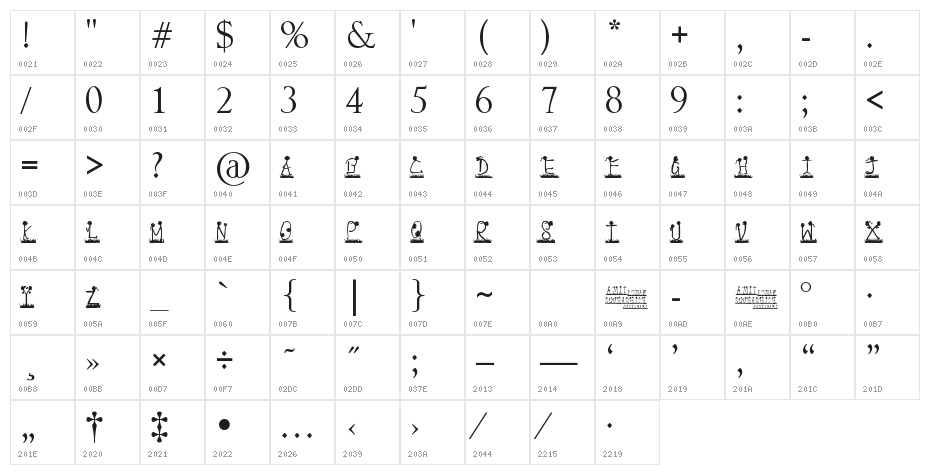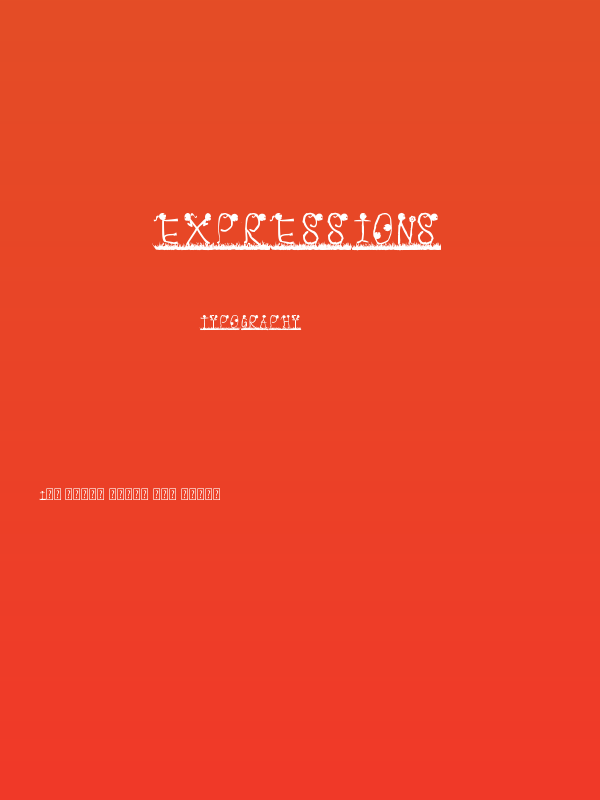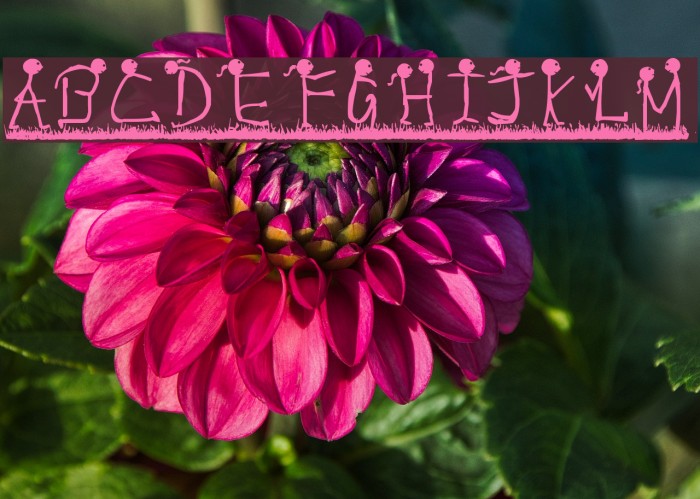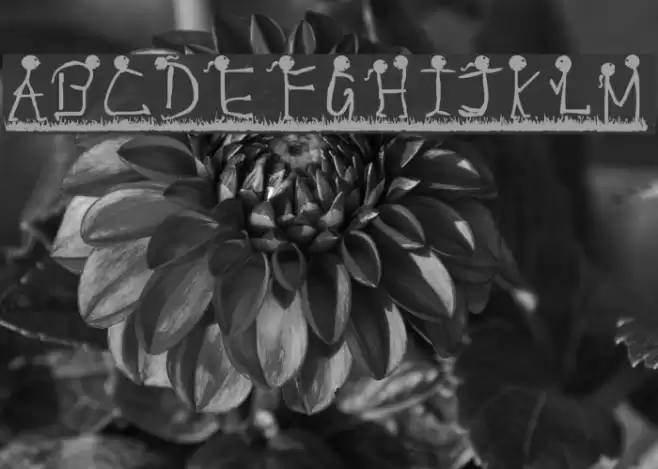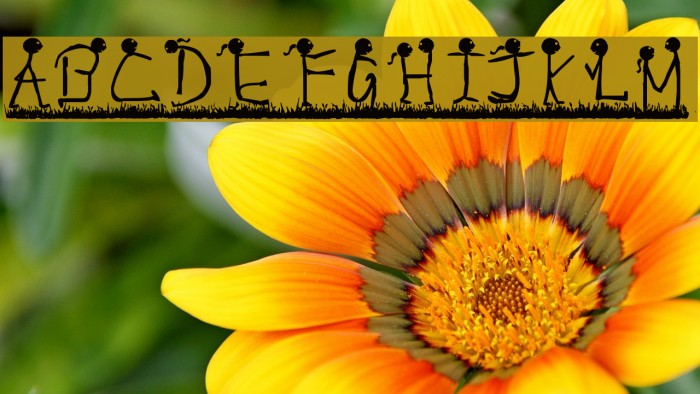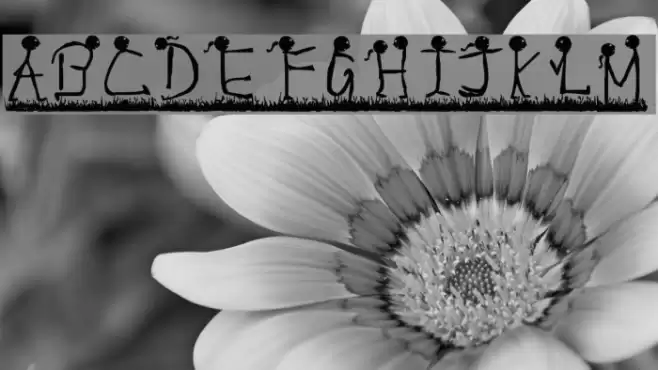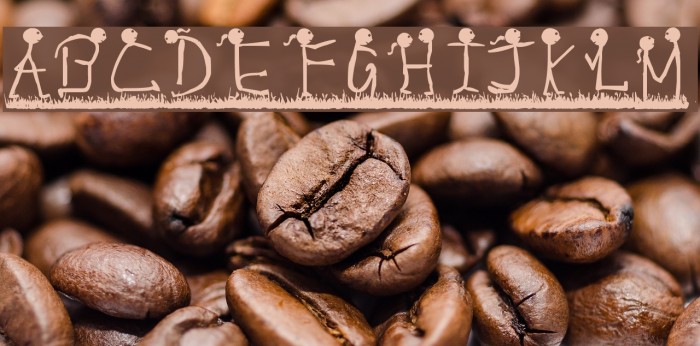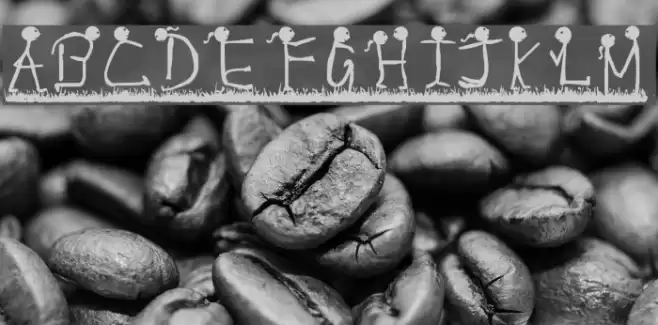
expressions Font
expressions Description
This font features a whimsical and playful design, with each letter adorned with grass-like elements at the base, giving it a natural and organic feel. The uppercase letters are distinct and bold, with unique embellishments that resemble small plants or sprouts. The numerals are clean and straightforward, contrasting with the decorative style of the letters. Special characters maintain a consistent style, ensuring coherence across different uses. This font is ideal for projects that aim to convey a sense of nature, creativity, or fantasy.
| Proposed Projects | Ideal for children's books, eco-friendly branding, garden-themed invitations, or whimsical posters. |